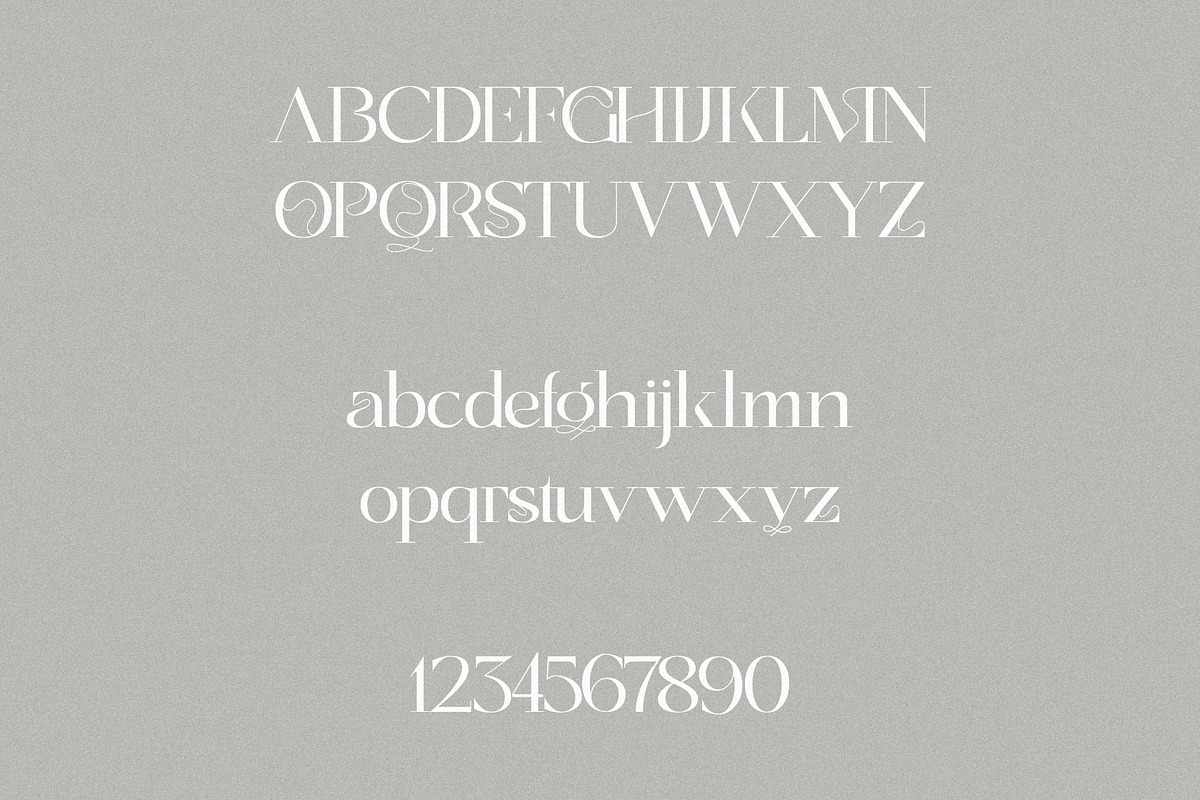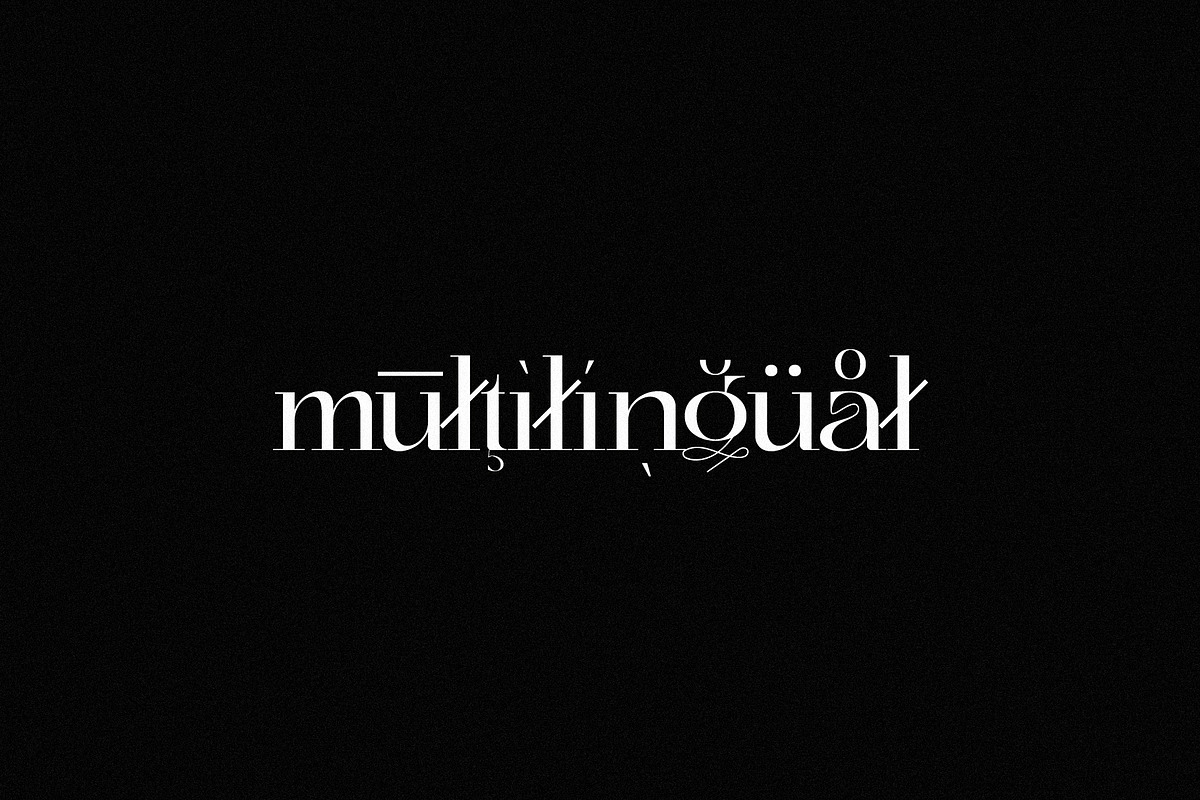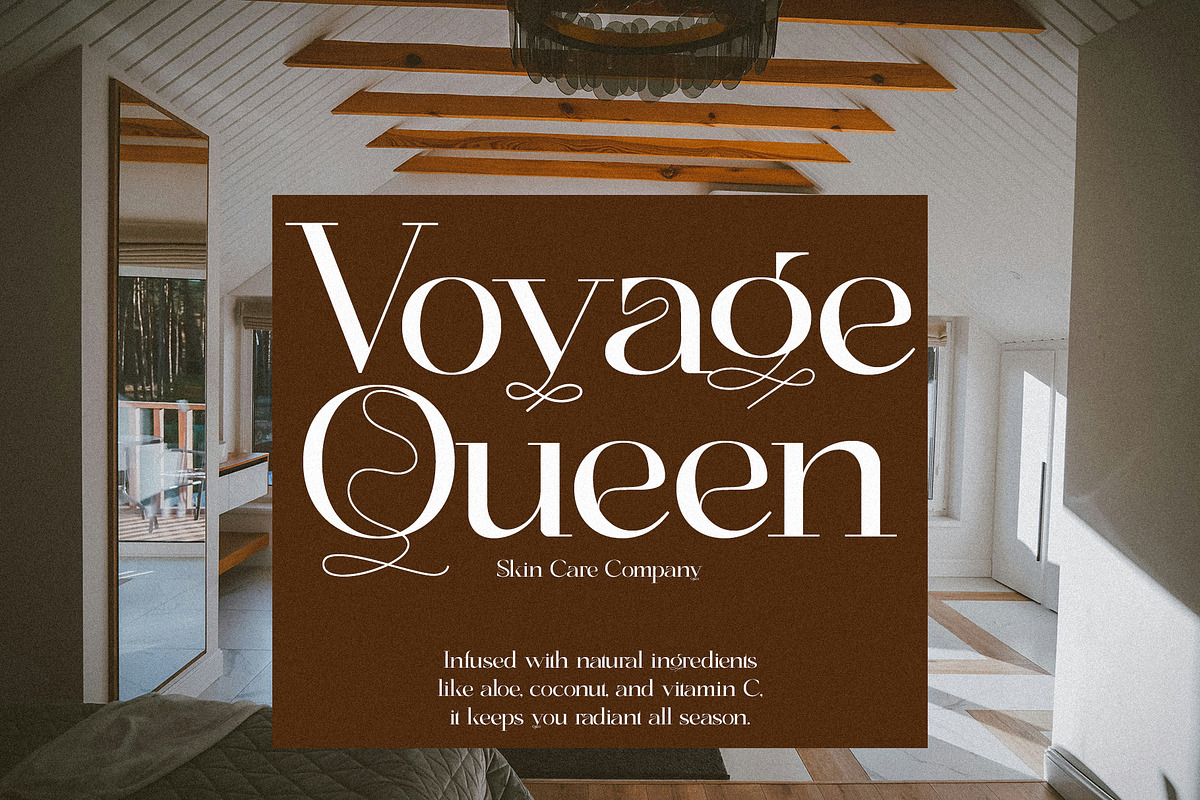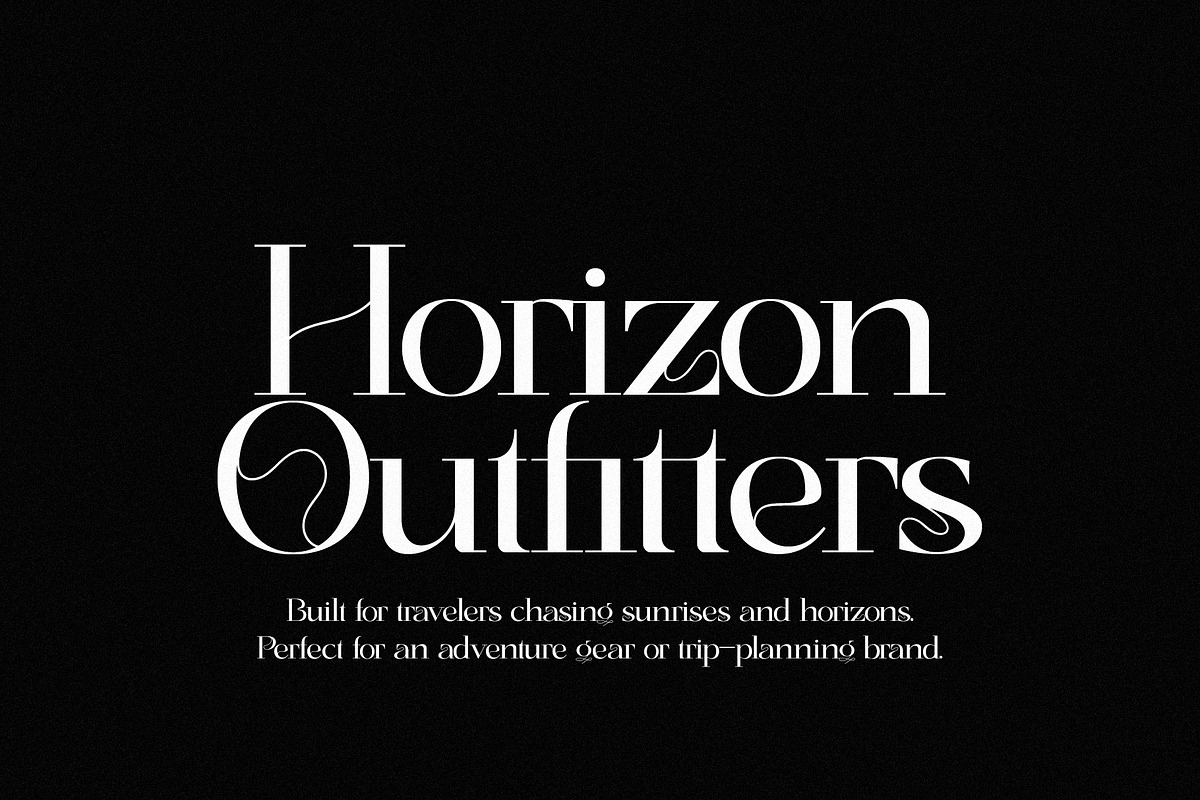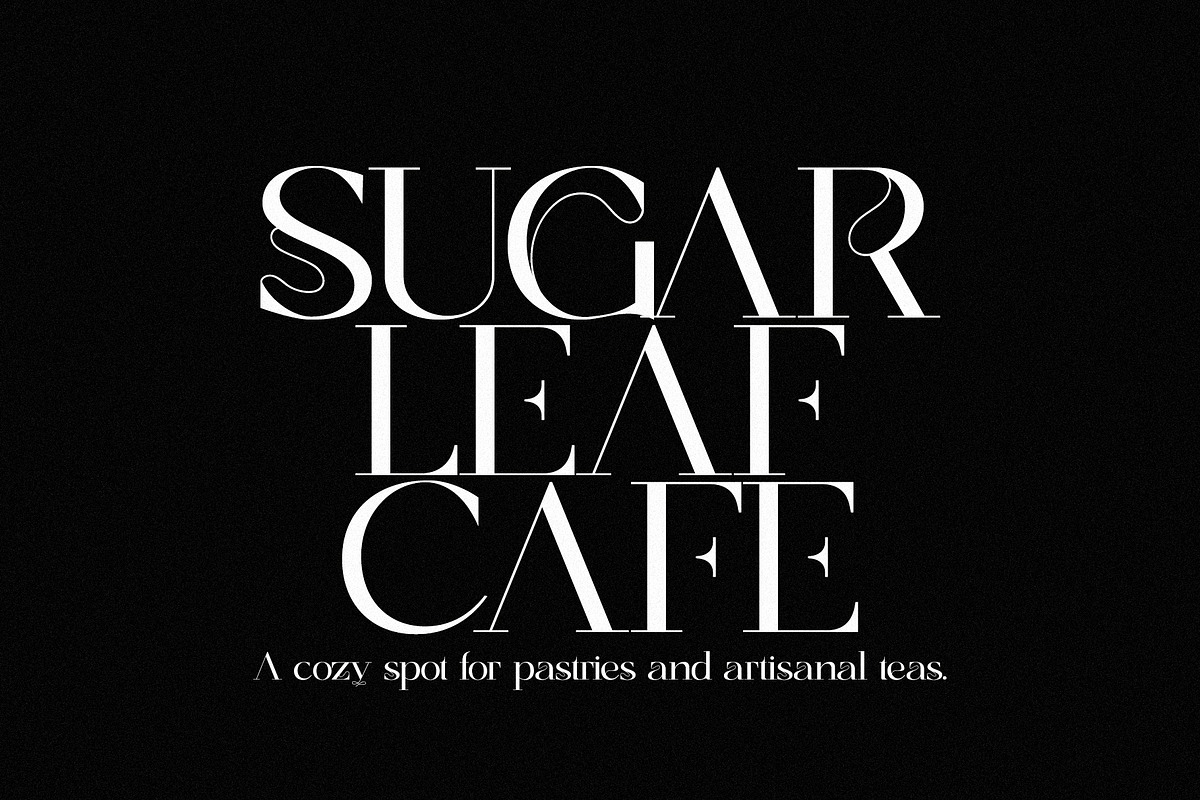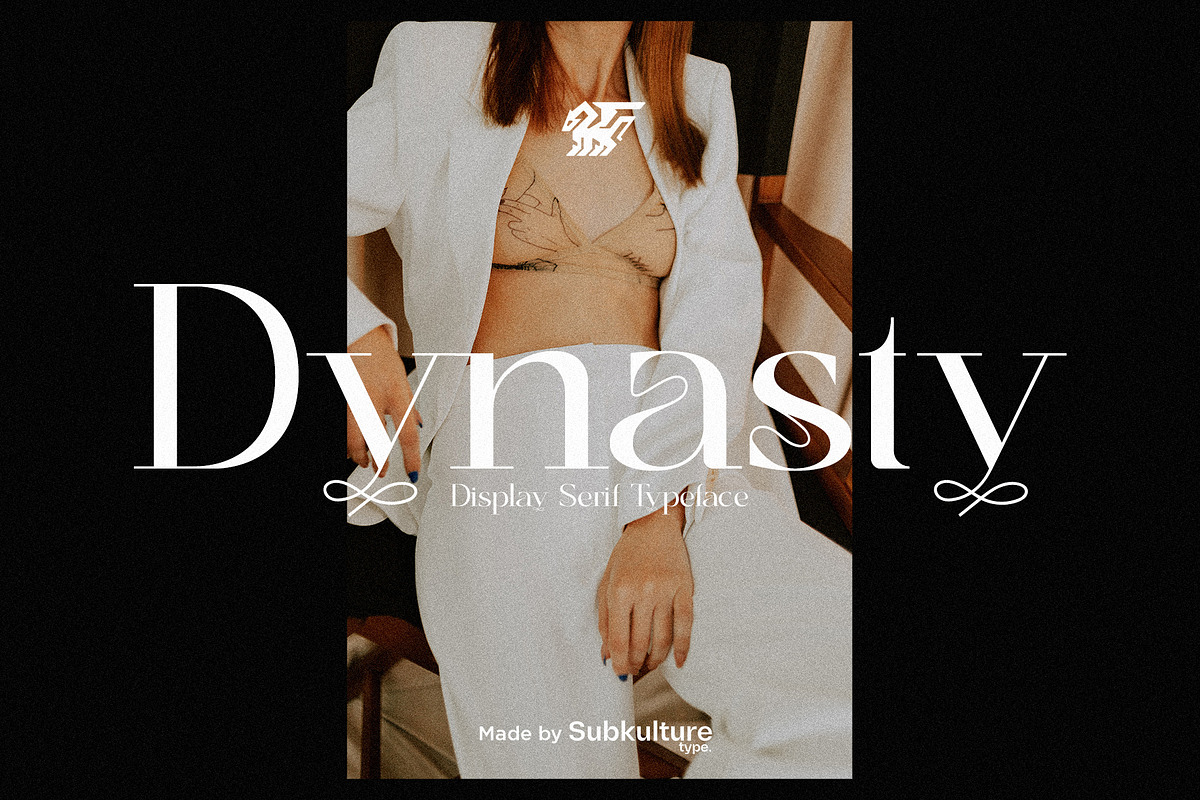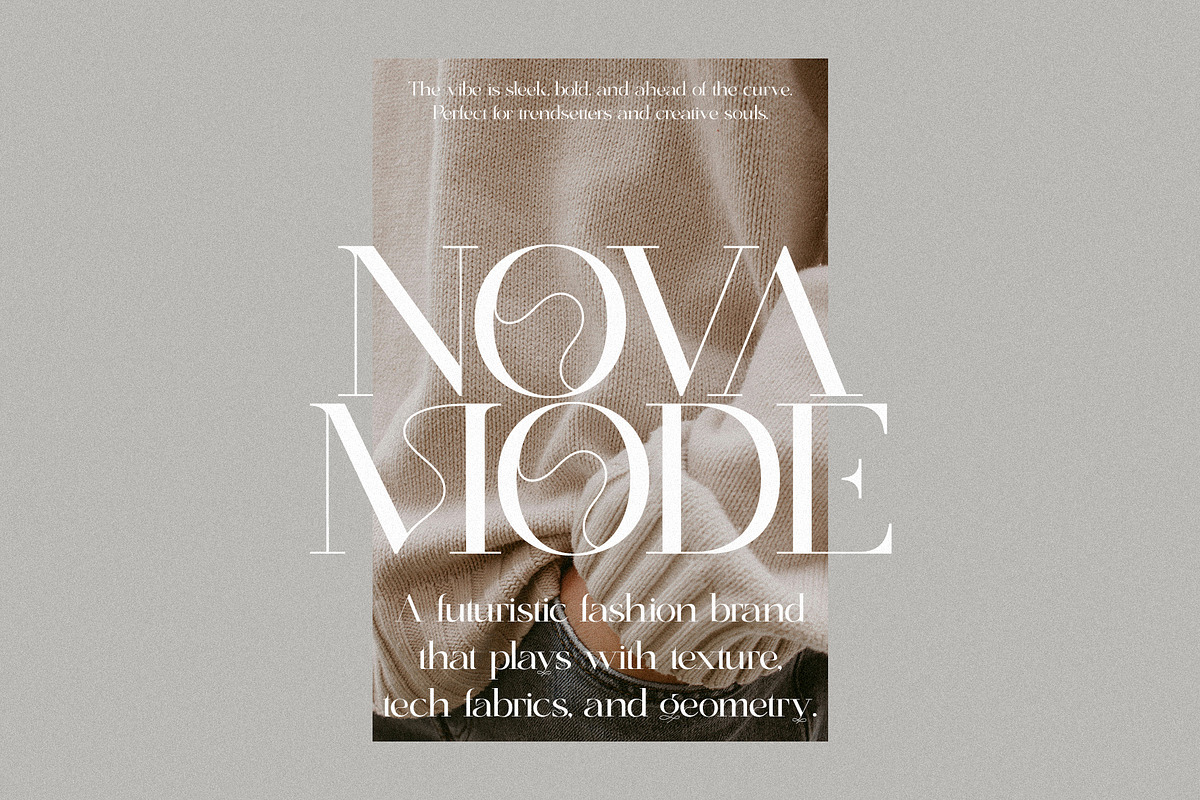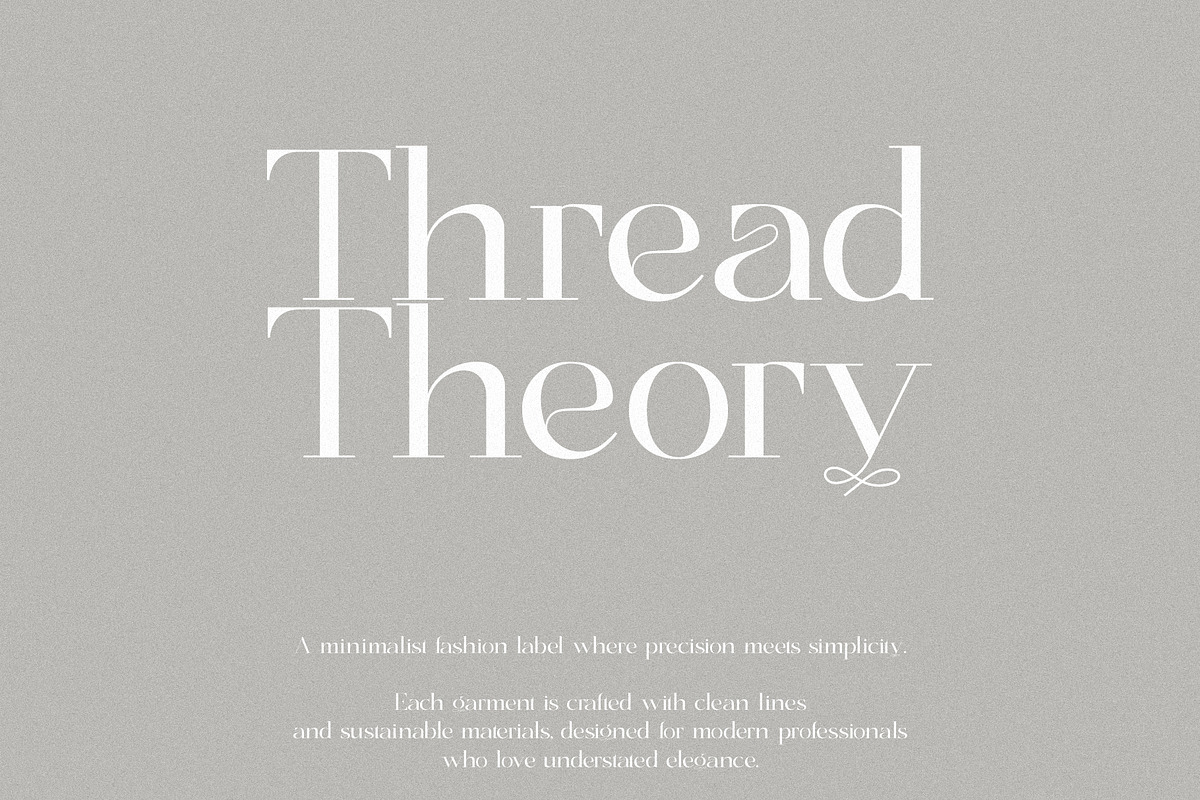
Dynasty - Curly Display Serif
Dynasty is an elegant curly display serif designed to bring a touch of luxury and whimsy to your typography. With its flowing curves, refined serifs, and eye-catching personality, this font is perfect for logos, branding, packaging, magazine titles, wedding designs, and standout social media graphics. Stylish, unique, and full of charm - Dynasty makes every word feel like a statement.
Dynasty features uppercase & lowercase letters, numbers & symbols, multilingual support, over 300+ glyphs.